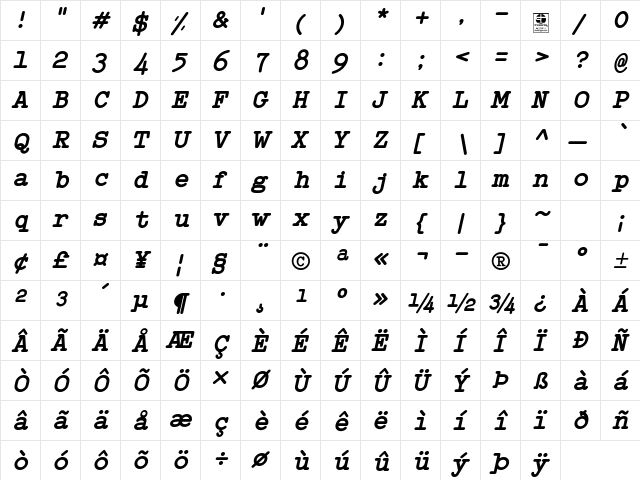
Typo Writer Demo Bold Italic
| Foundry | StudioTypo |
| Designer | MEHMET ABACI |
Design Context for Typo Writer Demo Typeface
Typo Writer Demo takes a measured approach to typography — its balanced proportions and neutral character make it a reliable workhorse for both digital and print work. The dynamic lean of this cut emphasises speed and emphasis in any layout. Its bold stroke weight gives it real presence on the page.
Pro Tip: Use Typo Writer Demo for emphasis, pull quotes, and subheadings where its slanted energy can add rhythm to the layout.